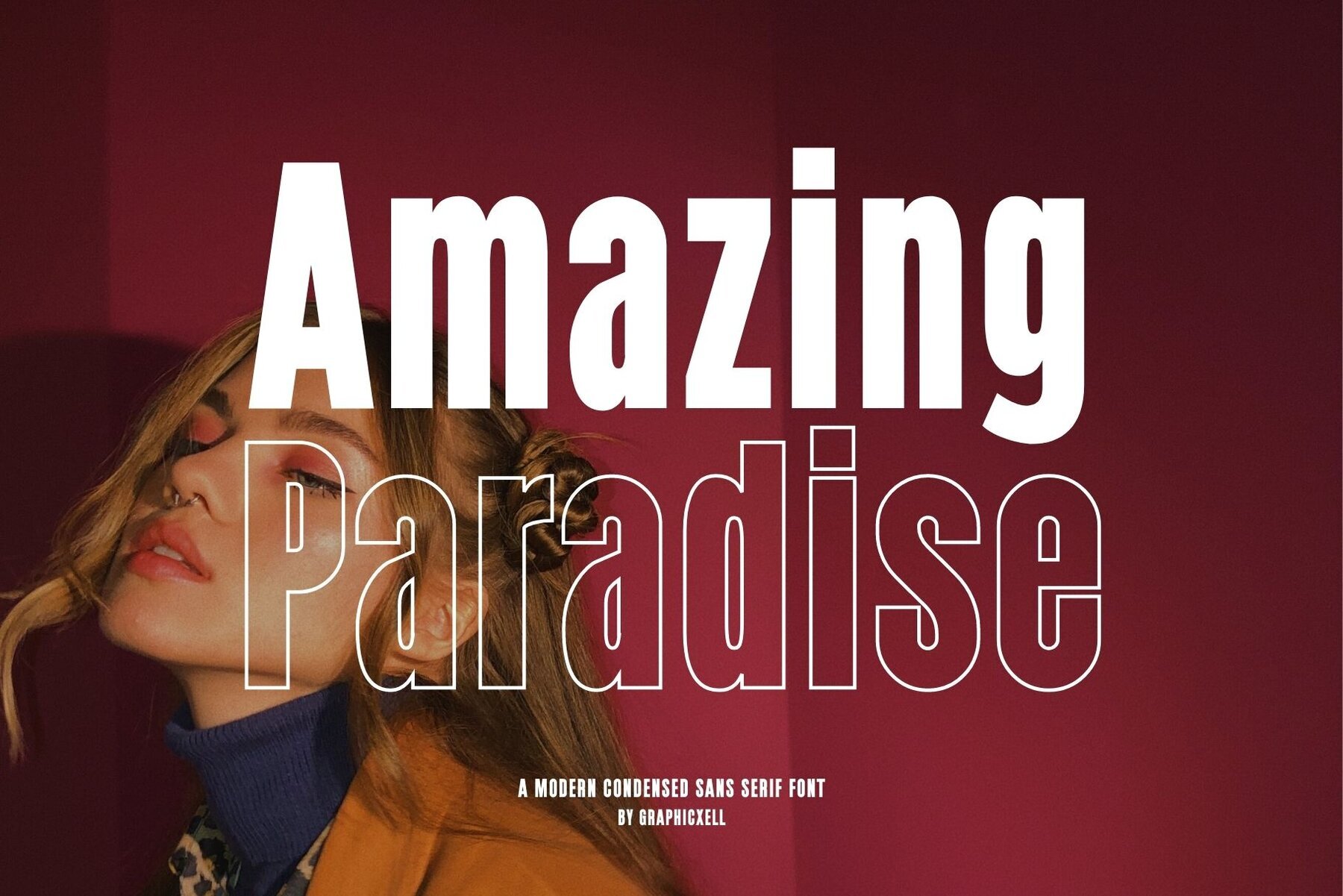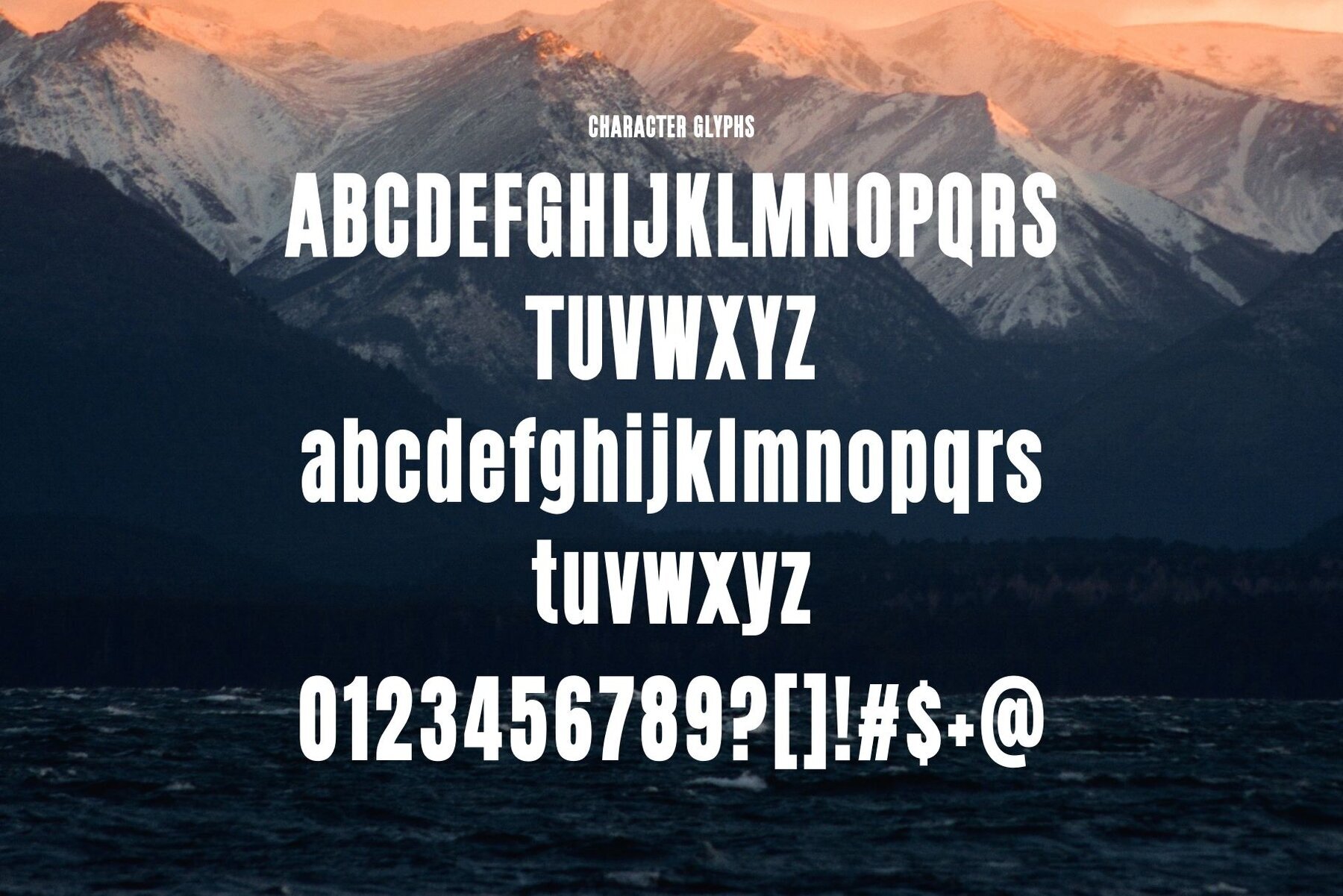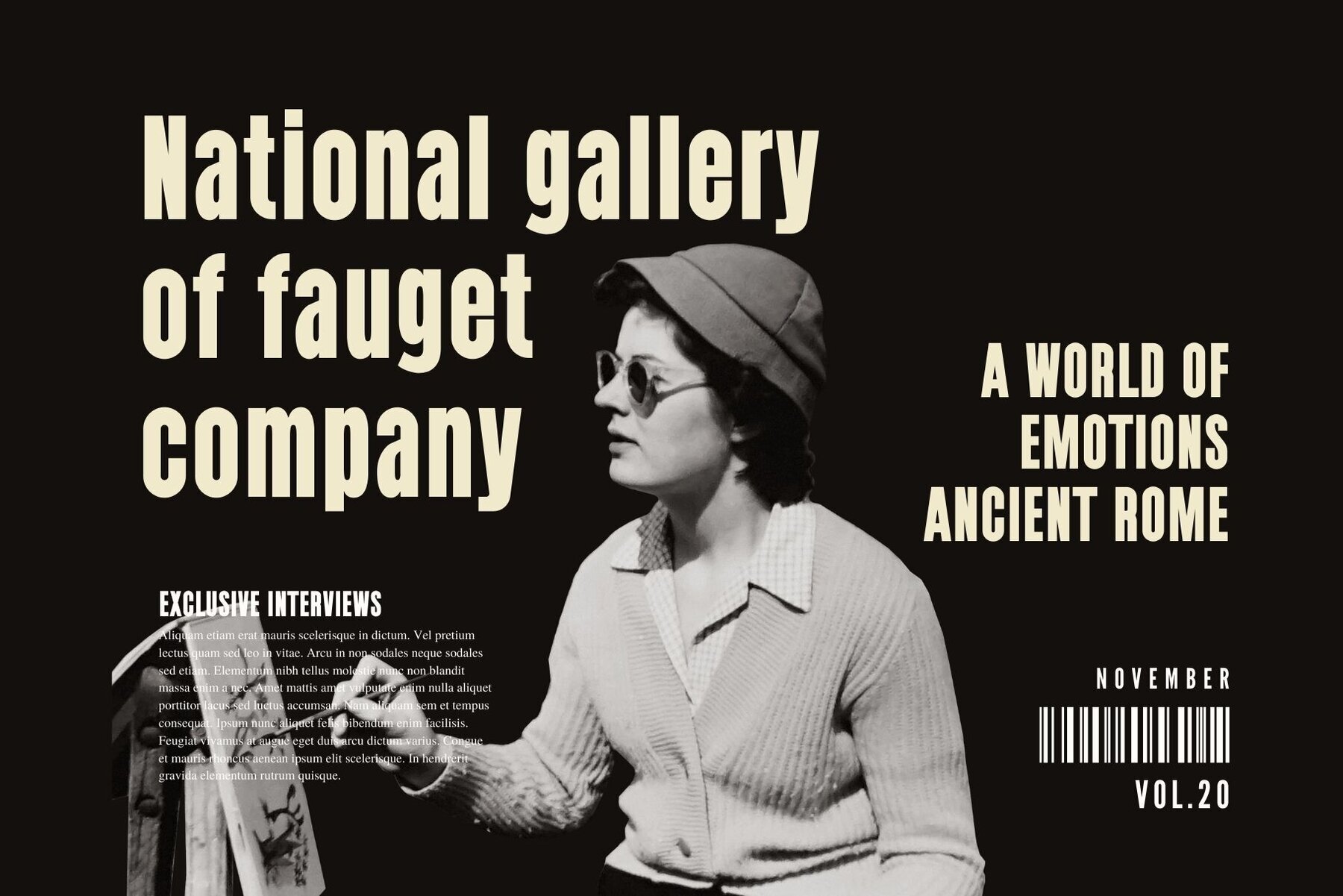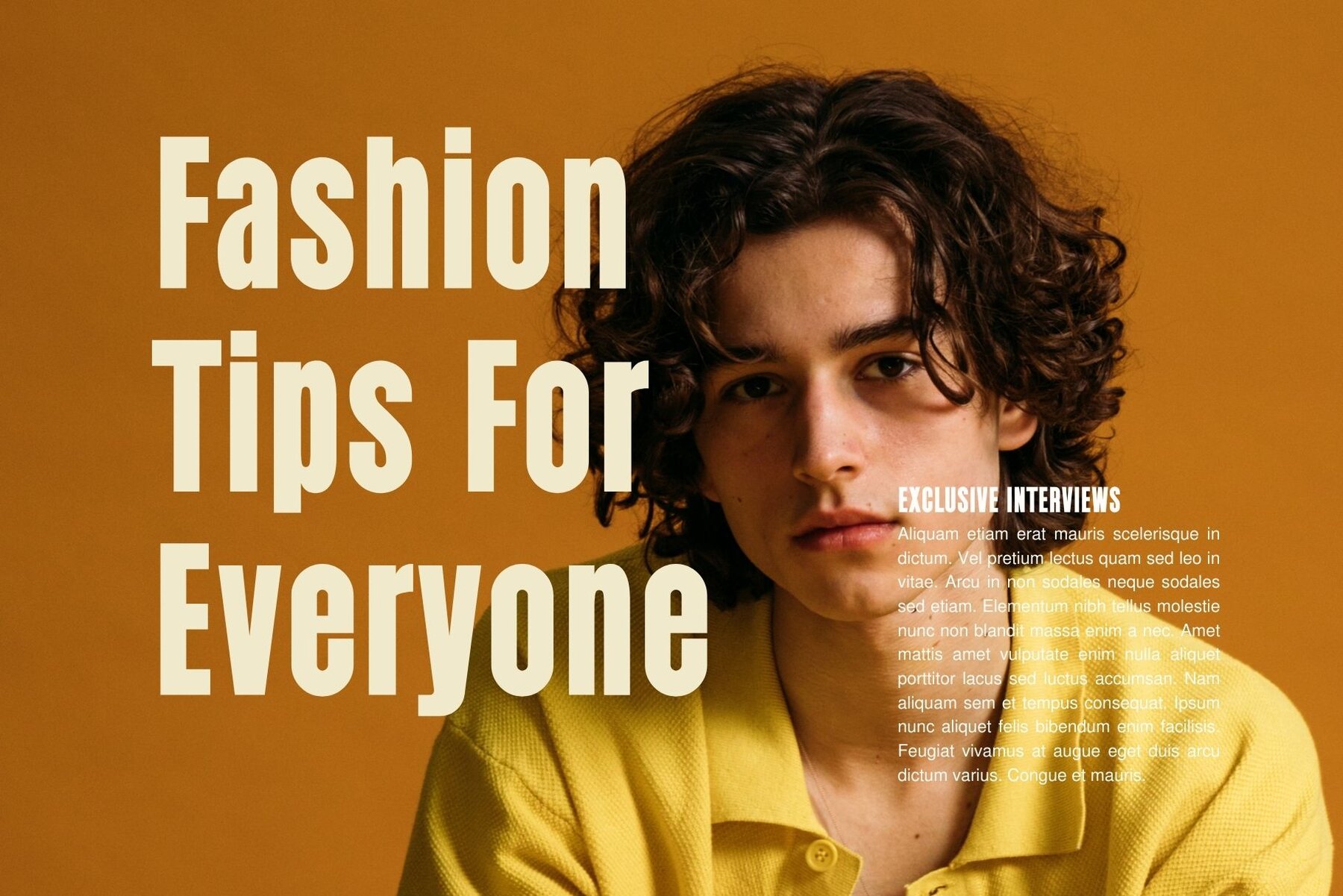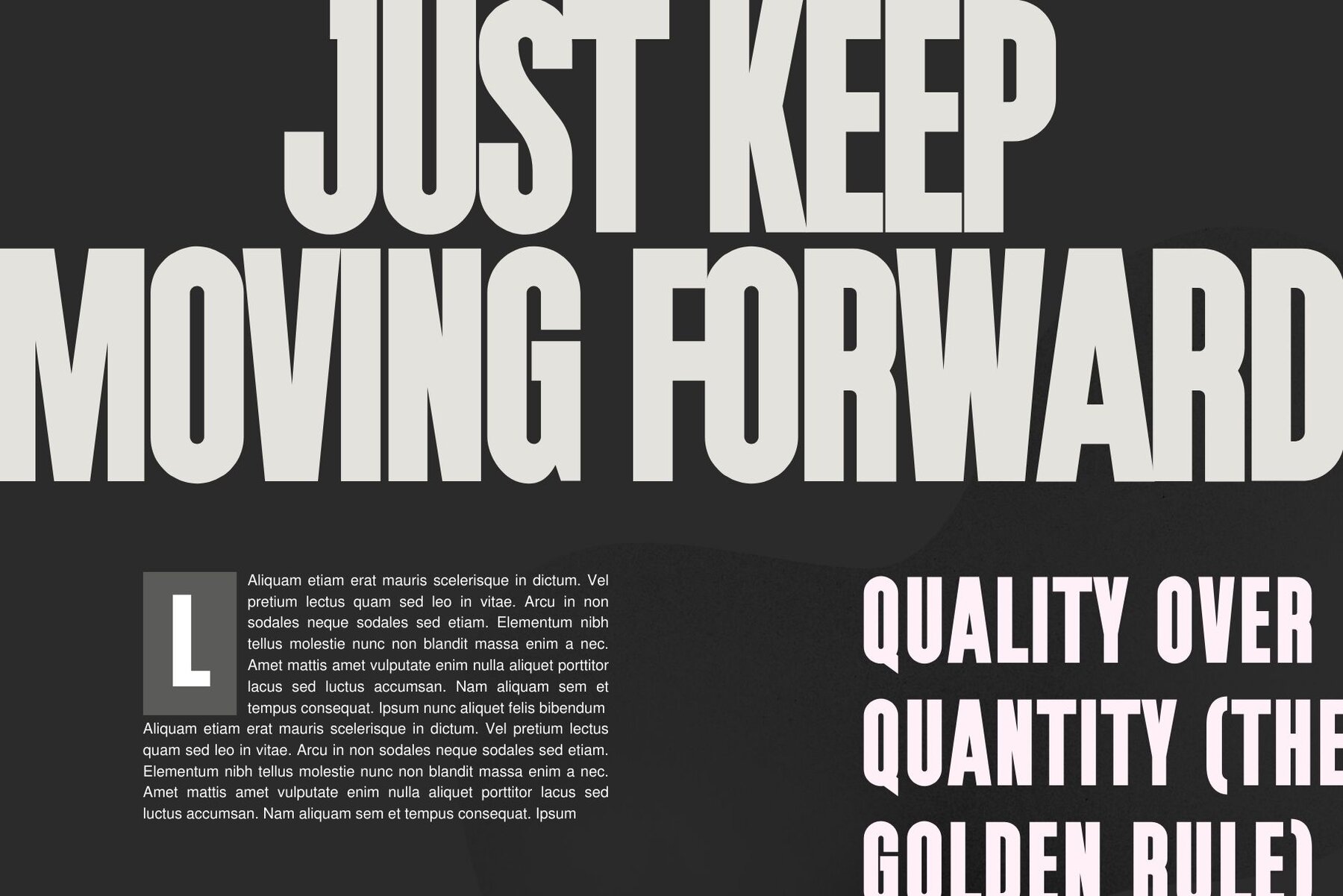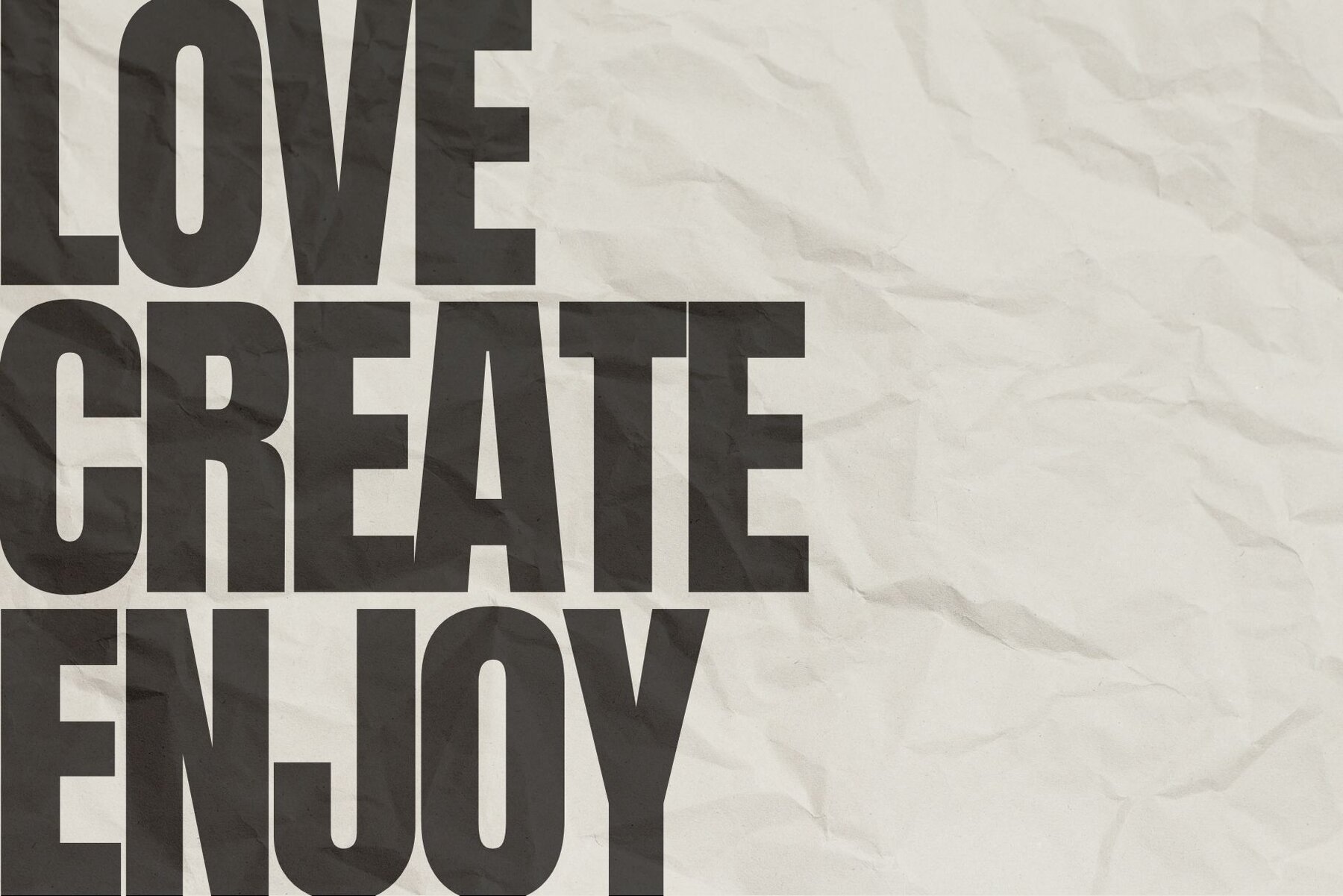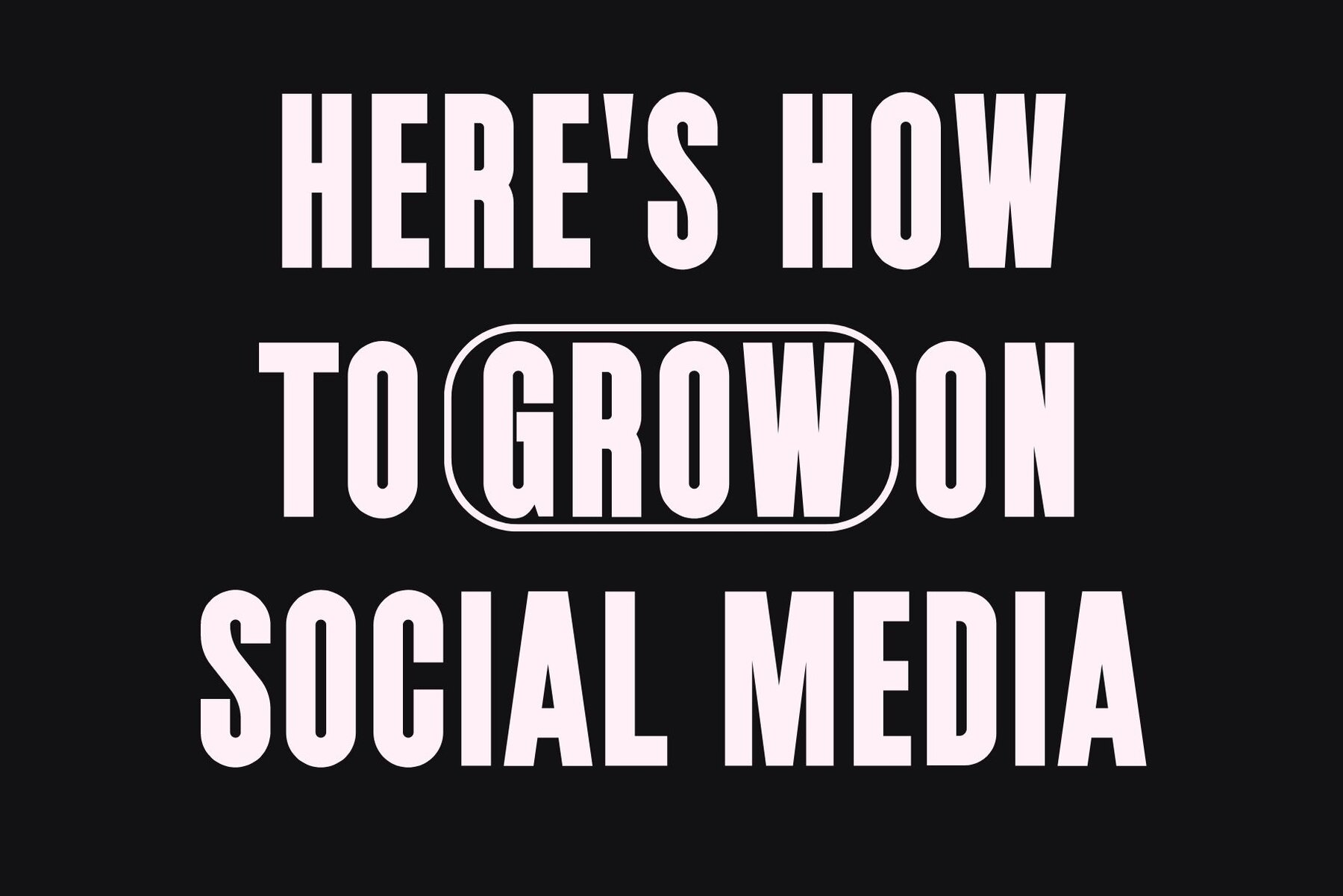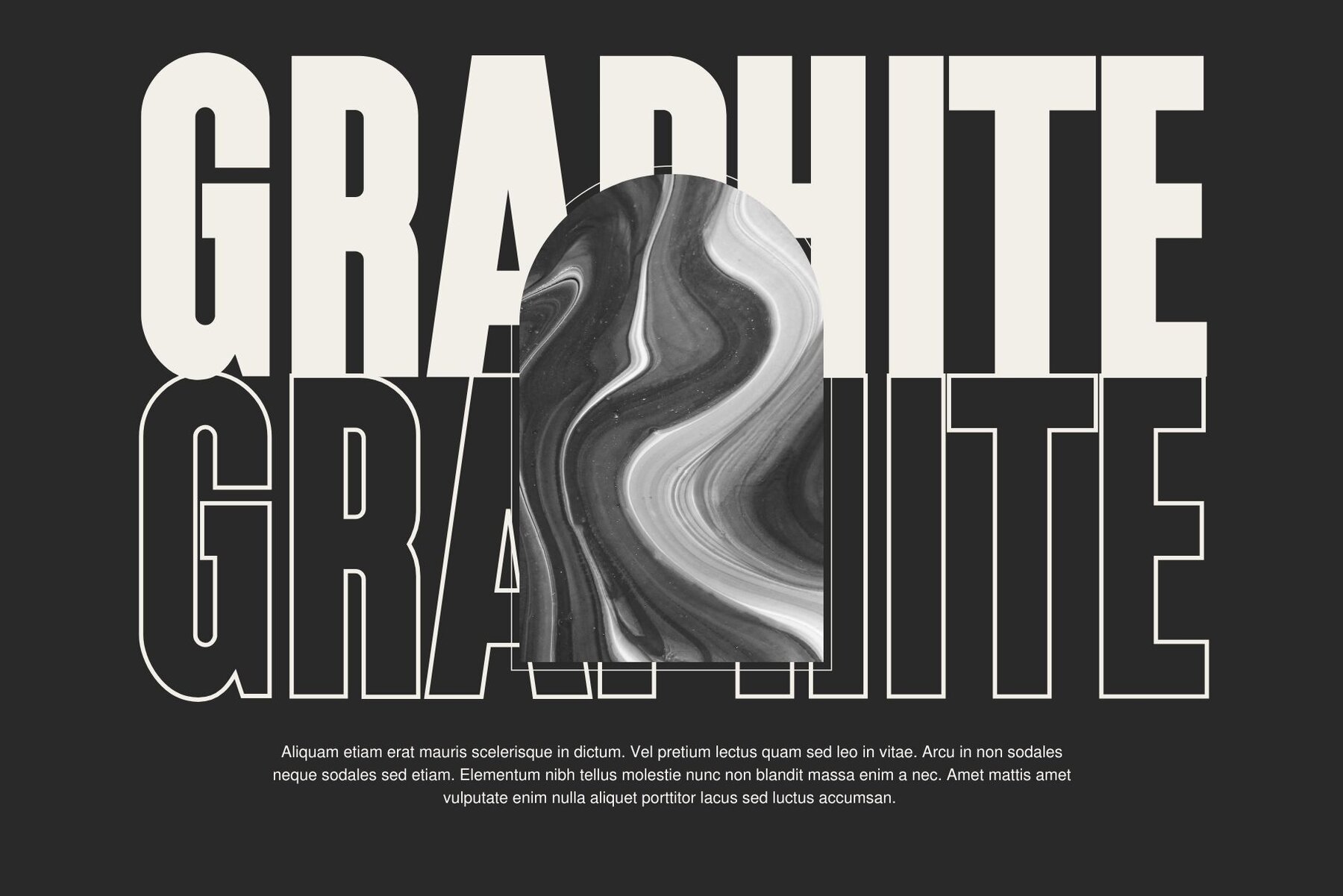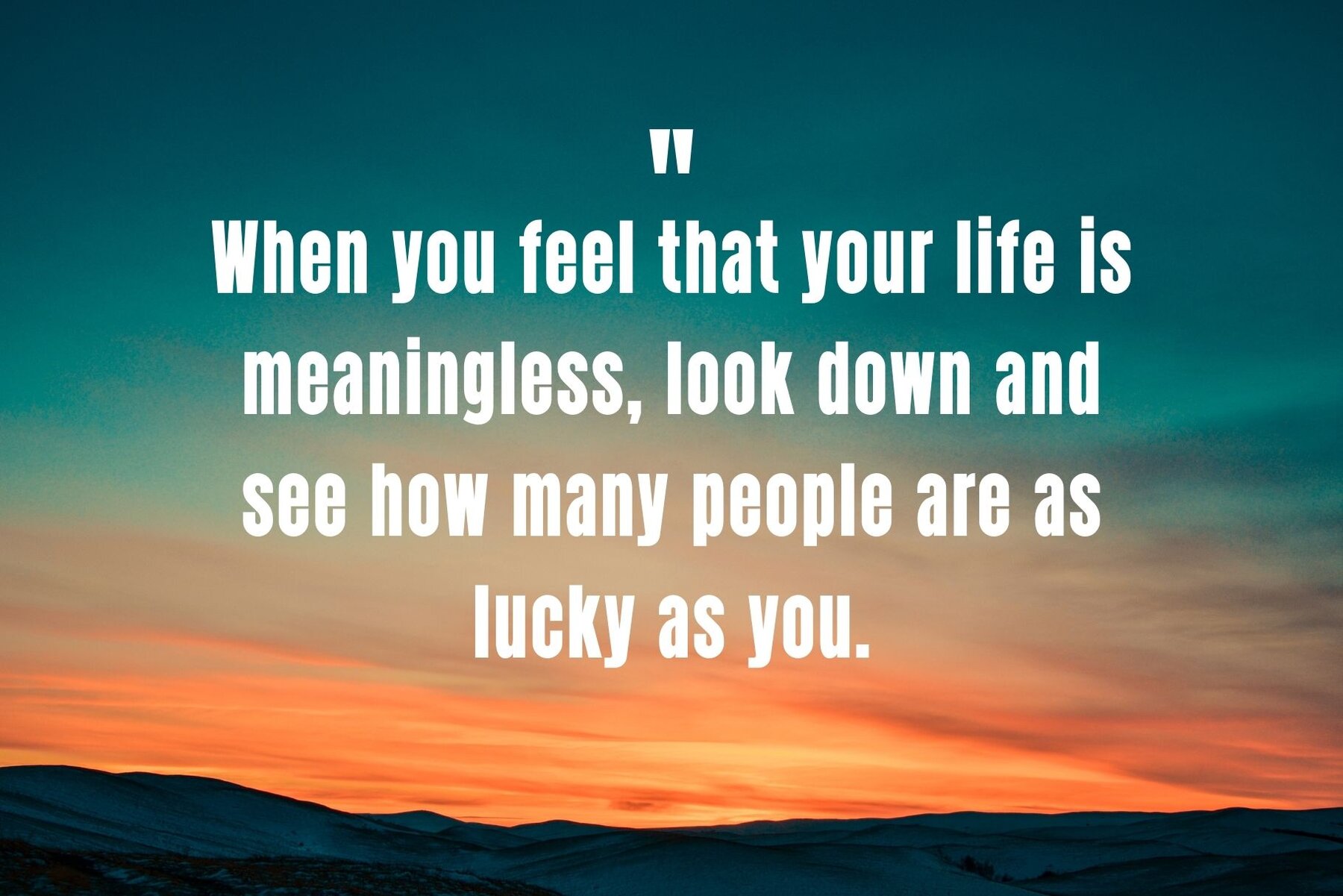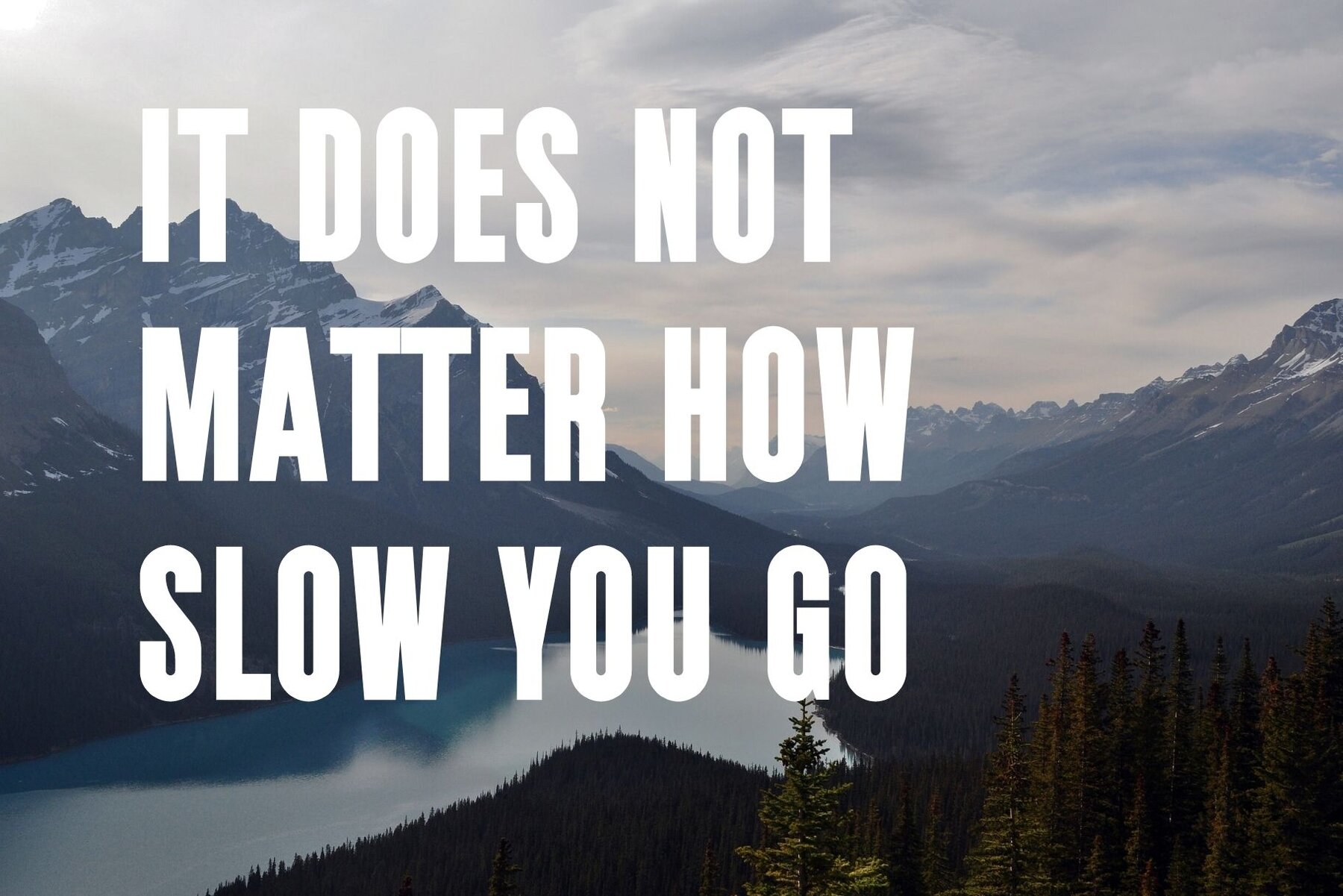
Amazing Paradise Font
Amazing Paradise
Amazing Paradise by Graphicxell draws inspiration from renowned minimalist logos, making it the perfect choice for a wide range of design projects. Its versatility shines through in various applications, from branding to beauty design.Amazing Paradise: Stylish Minimalist Design by Graphicxell